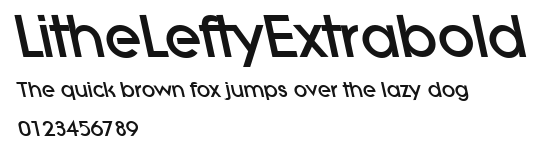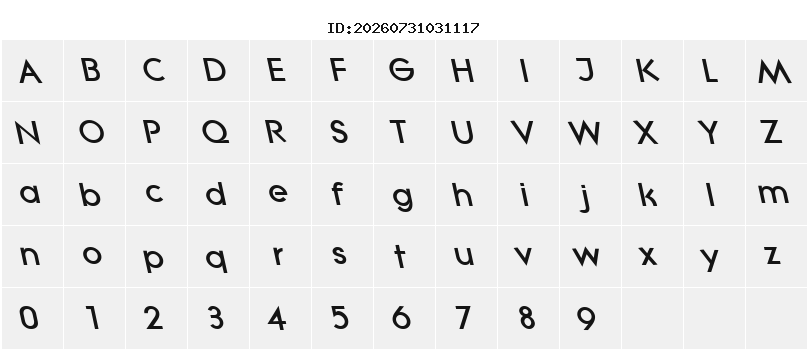
LitheLeftyExtrabold Preview
About LitheLeftyExtrabold.ttf
LitheLeftyExtrabold.ttf is a modern, elegant sans-serif font designed for ultimate readability and visual harmony. Perfect for branding, headlines, web design, and print materials.